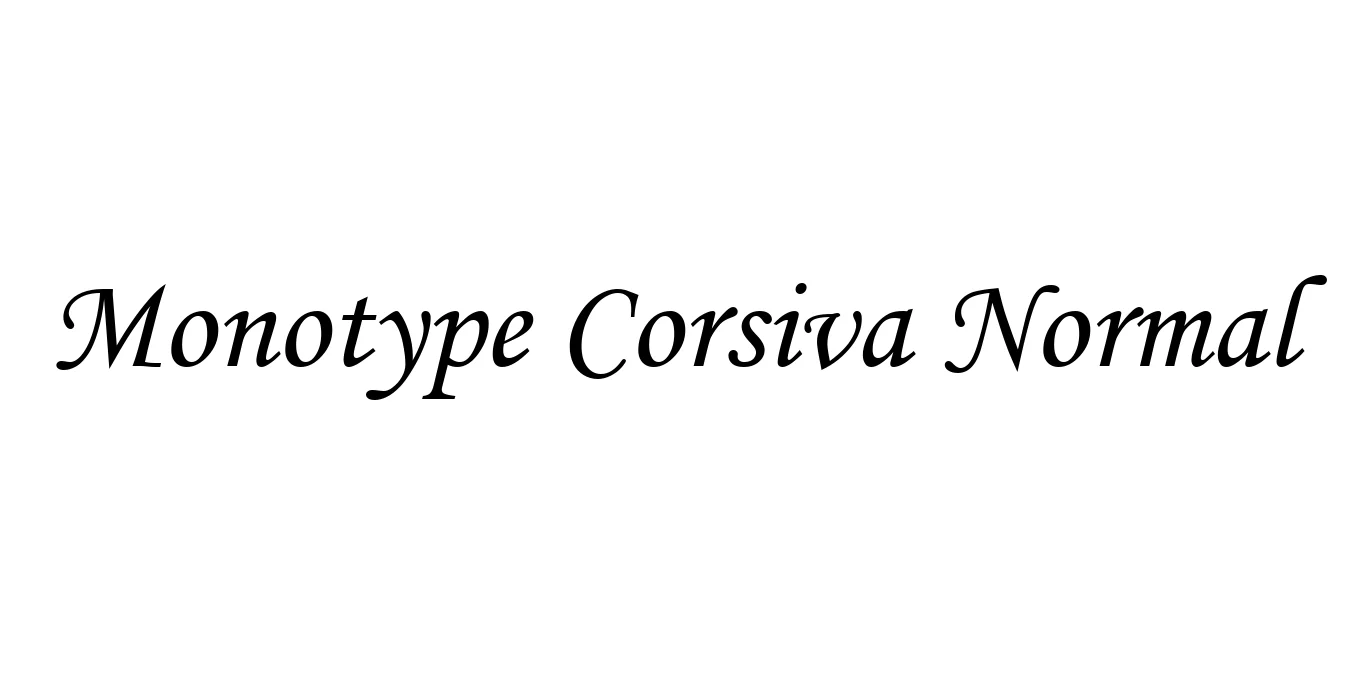
Monotype Corsiva Normal
Designed by Patricia Saunders
Monotype Corsiva Normal is an elegant italic typeface designed by Patricia Saunders for the Monotype Corporation in 1995. It is modeled after the 16th-century Italian cursives, specifically the Chancery style, which was known for its slanted, flowing strokes and calligraphic roots. The font was created to bridge the gap between formal calligraphy and digital readability, offering a sophisticated aesthetic that remains legible even in longer blocks of text.
The typeface achieved worldwide recognition due to its inclusion in various Microsoft Office software packages, making it one of the most accessible calligraphic fonts for the general public. Its distinctive rhythmic flow and graceful swashes make it a favorite for projects that require a touch of class and tradition. It stands as a modern classic in the world of script and italic typography.
Monotype Corsiva Normal Best Uses
Perfect for wedding invites and formal event stationery.
Commonly used for diplomas and awards to convey a sense of prestige.
Ideal for logos and packaging that require a classic, high-end feel.
Excellent for personalized engraving and custom greeting cards.